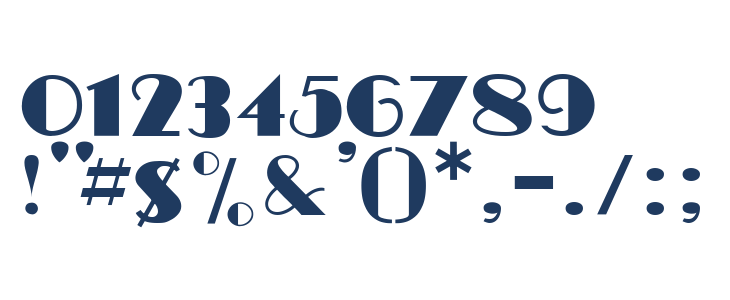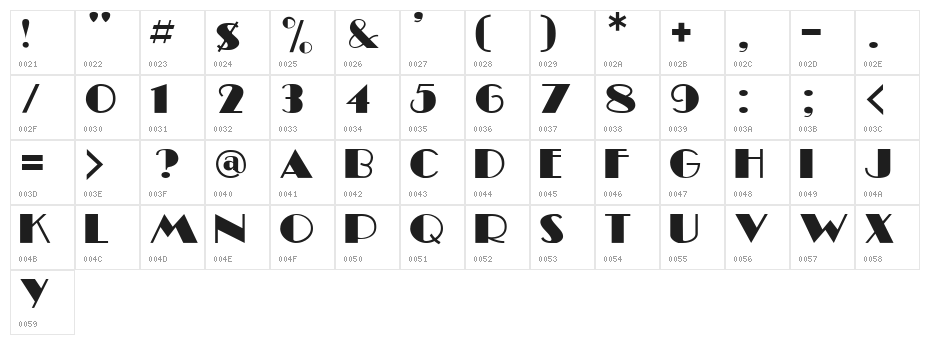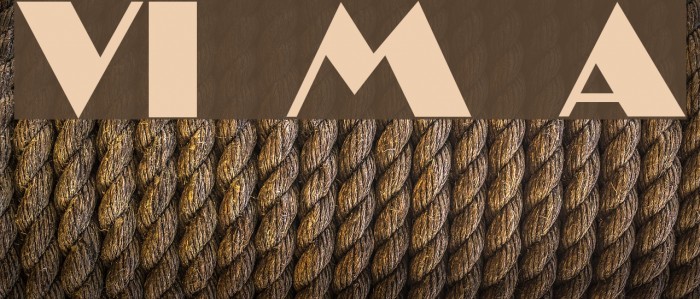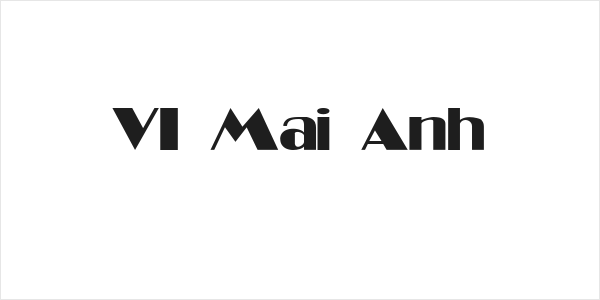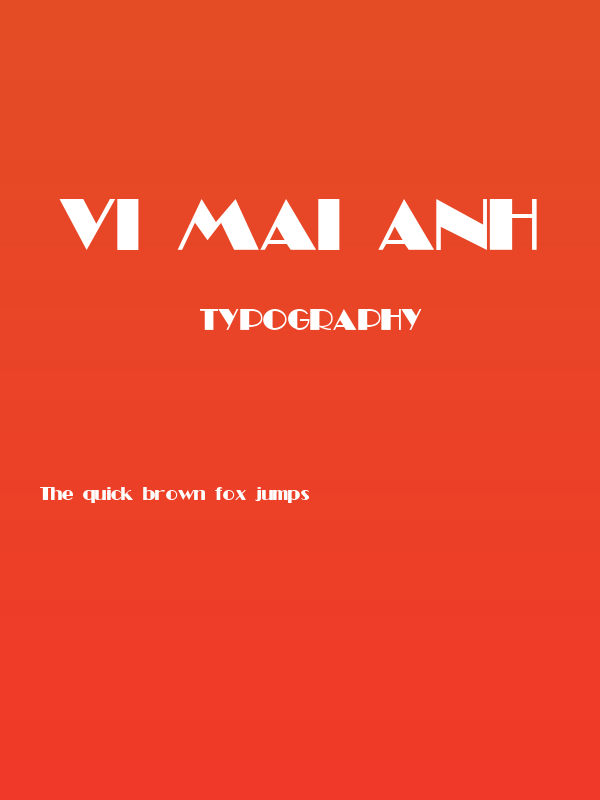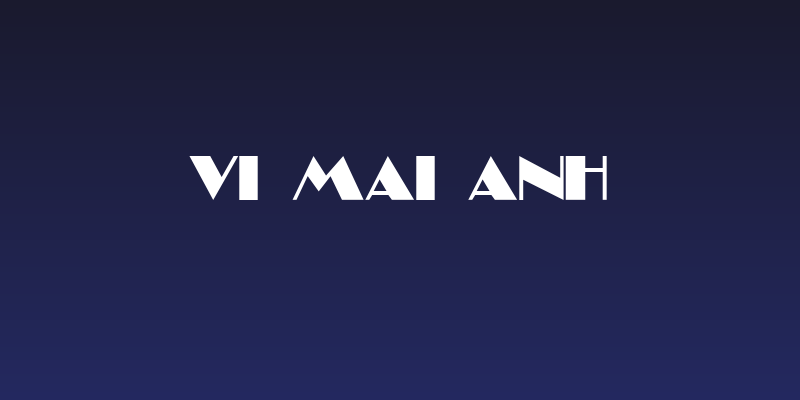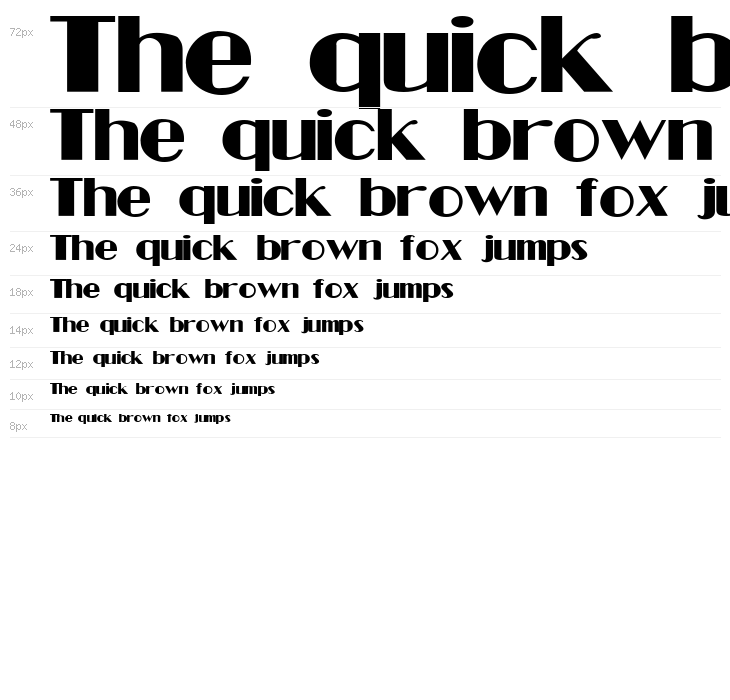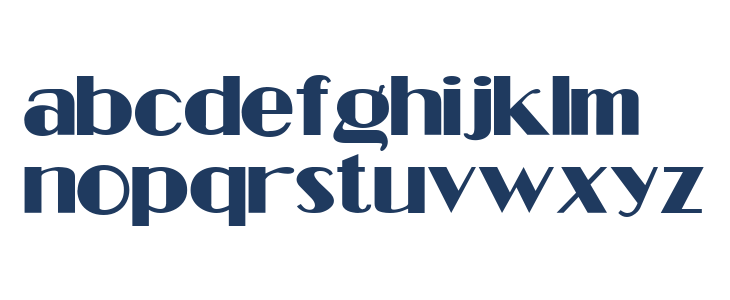
VI Mai Anh Font
VI Mai Anh Description
This font features a bold and striking design with a modern flair. The uppercase letters are characterized by sharp angles and geometric shapes, creating a sense of dynamism and energy. The lowercase letters maintain a consistent boldness, with some characters displaying unique curves and cuts that add to the font's distinctive style. The numbers are equally bold, with a uniform thickness that ensures readability. Special characters are designed to match the overall aesthetic, with a mix of angular and rounded elements. This font is ideal for making a strong visual impact.
| Proposed Projects | Ideal for branding, posters, headlines, and any project requiring a bold, modern aesthetic. |